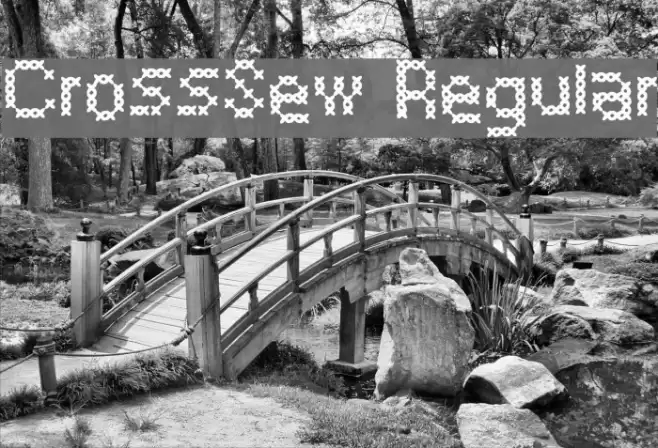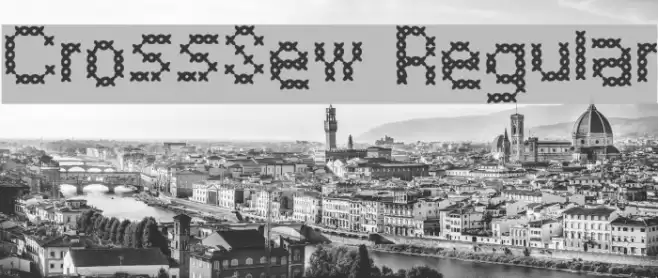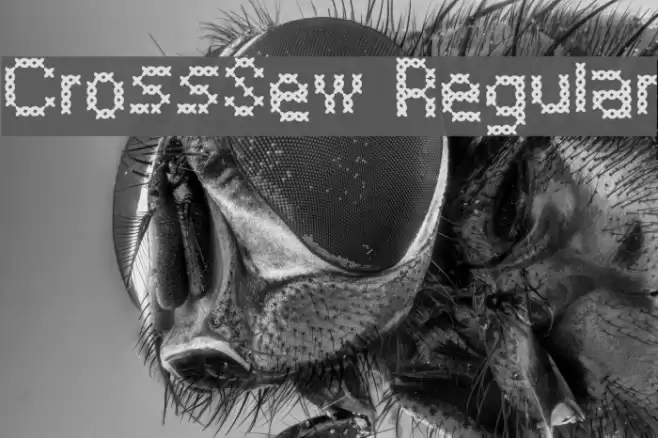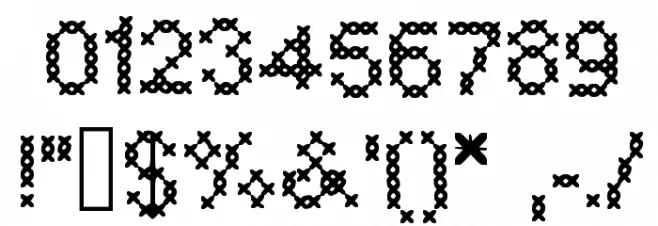
CrossSew Regular Font
CrossSew Regular Description
This font features a unique cross-stitch pattern that mimics the appearance of embroidery. Each character is composed of small, intersecting lines that create a textured, handcrafted look. The style is consistent across uppercase, lowercase, numbers, and special characters, maintaining a cohesive aesthetic. The font's design is reminiscent of traditional needlework, offering a nostalgic and artisanal feel. Its distinct appearance makes it stand out, providing a decorative touch that can enhance creative projects.
A decorative font with a cross-stitch embroidery style from Decorative fonts.
- Proposed Projects: Ideal for craft projects, DIY invitations, textile designs, and any creative work that requires a handmade or vintage touch.
- Overall Style: Vintage
- Use Case: Logos, Headlines, Decorative text